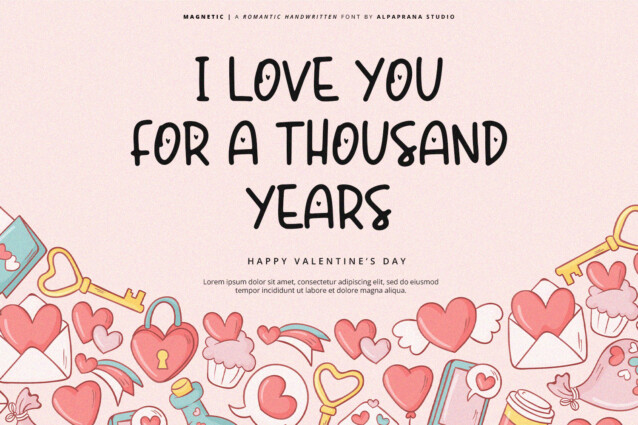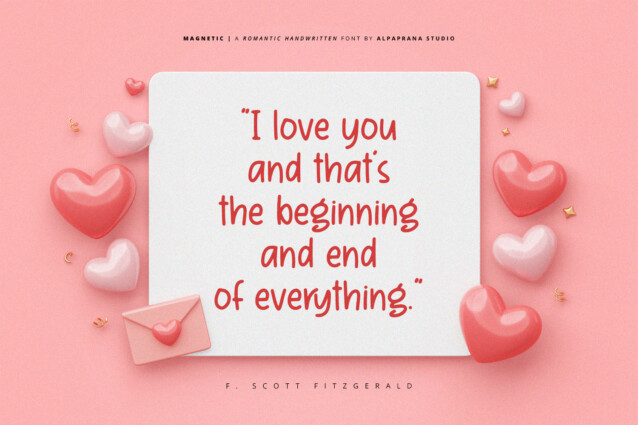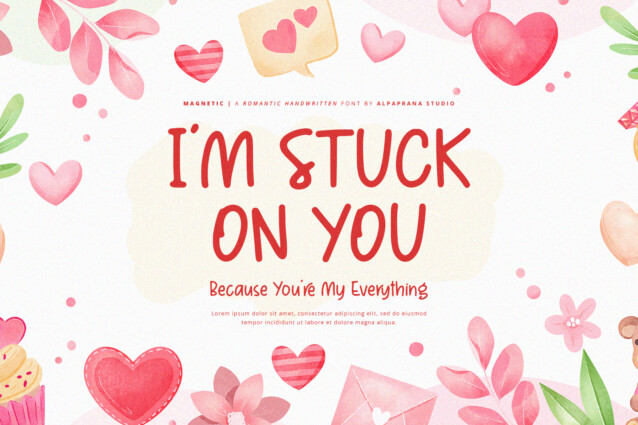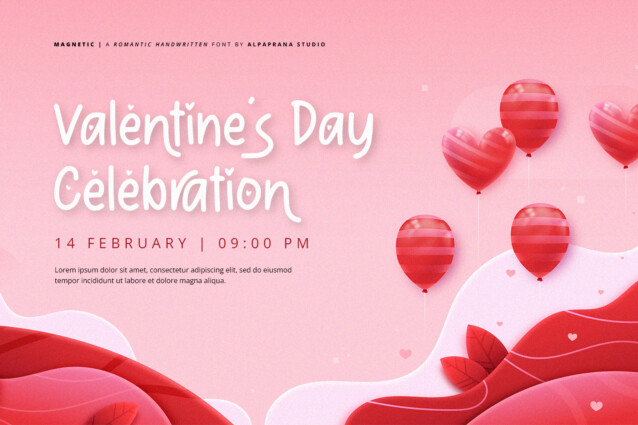
Magnetic – Handwritten Font
Magnetic – Handwritten Font – is a Handwritten font with romantic and casual feels. It will be perfectly used for Branding, Logo Design, Lettering, Logotype, Clothing, Poster, magazine, packaging, posters, shopping bags, t-shirts, book covers, photography, special events and other design project.